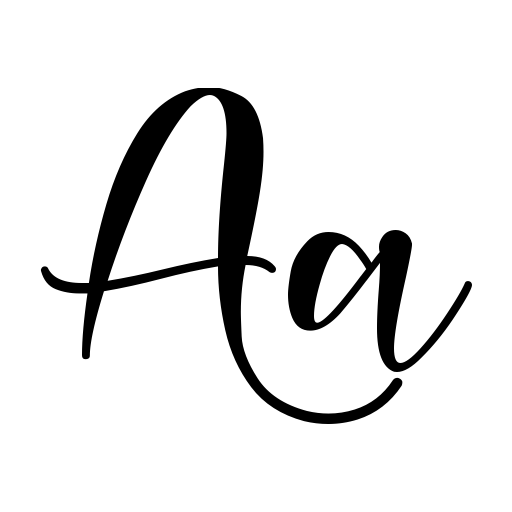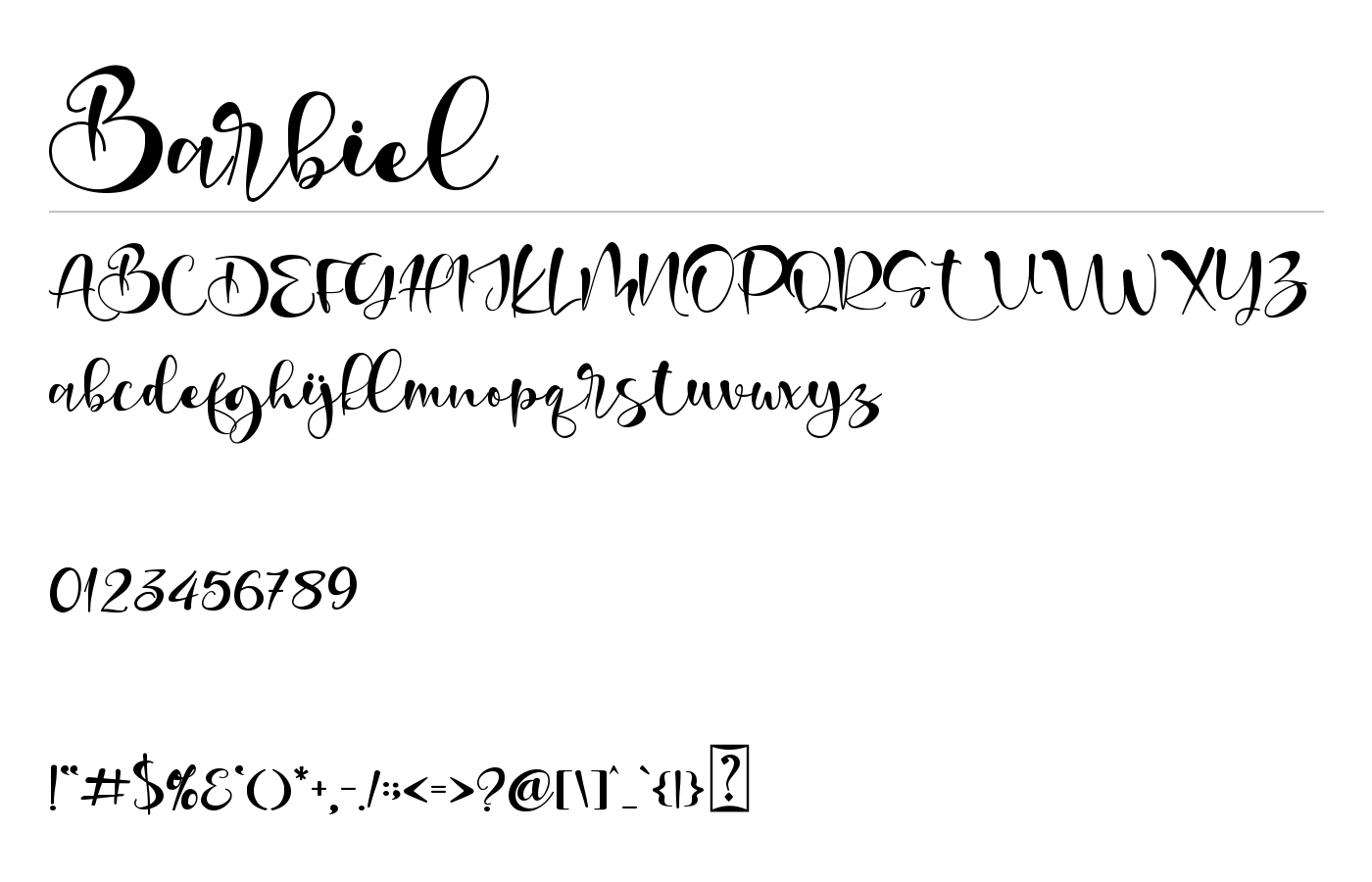
Barbiel is a stylish script font characterized by elegant, flowing letterforms with high contrast strokes and playful swashes, giving it a charming and sophisticated feel. Its calligraphic style and decorative details make it perfect for branding, invitations, and headlines where a graceful and artistic touch is desired. This font works especially well in fashion, beauty, and lifestyle projects, adding a luxurious and feminine vibe.
About Barbiel Font